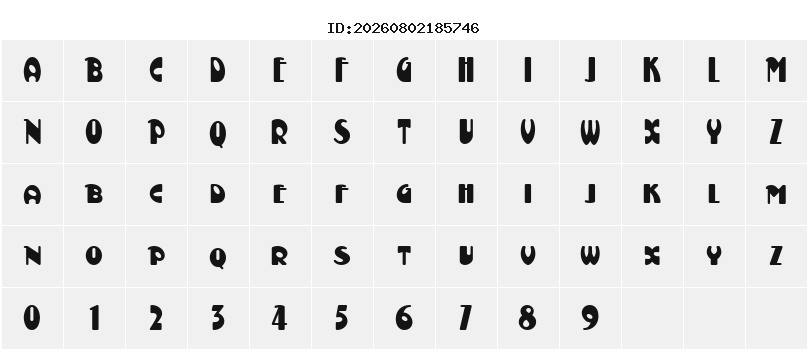
NovSchmozKapopNF Preview
• Font Name: NovSchmozKapopNF
• Manufacturer: Nick Curtis
About NovSchmozKapopNF.ttf
NovSchmozKapopNF.ttf is a modern, elegant sans-serif font designed for ultimate readability and visual harmony. Perfect for branding, headlines, web design, and print materials.